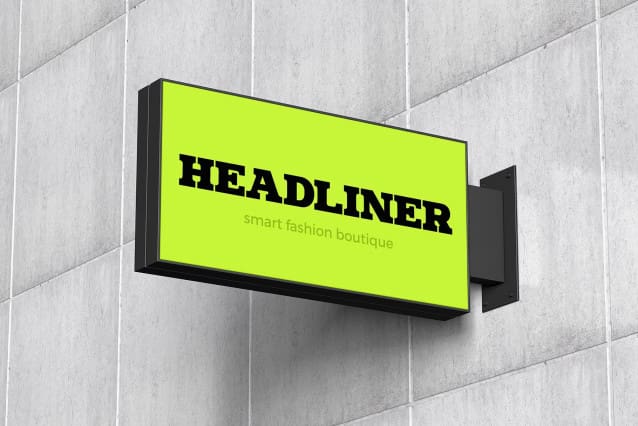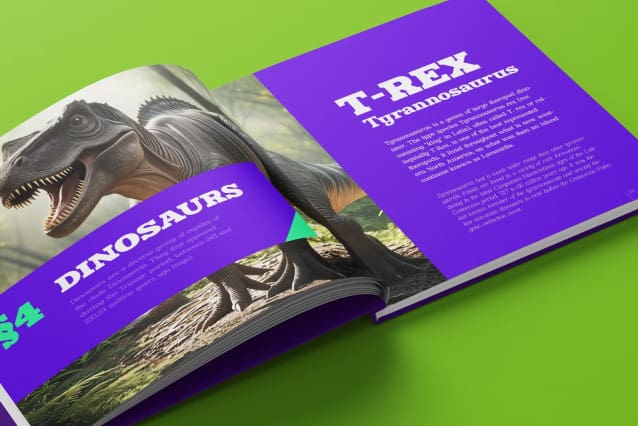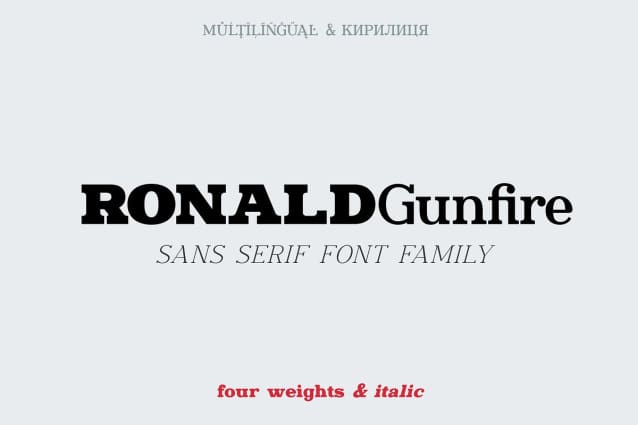
Ronald Gunfire Font Family
Ronald Gunfire Font Family, is classic and modern serif Font Family carefully designed and well looking in lowercase and uppercase letters both. It has Four Weights with theirs Italic Versions.